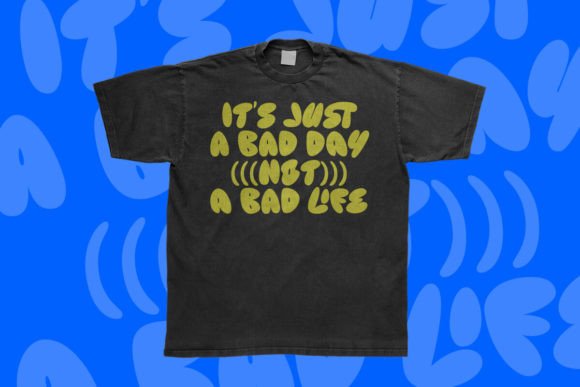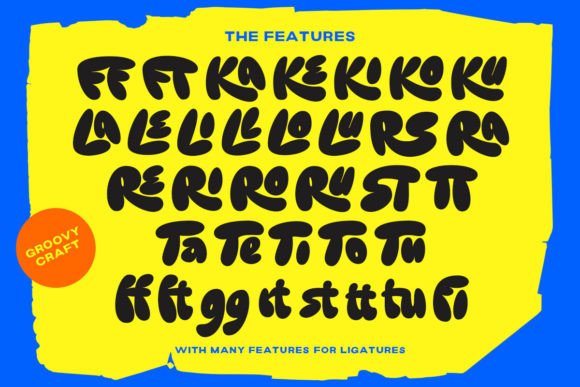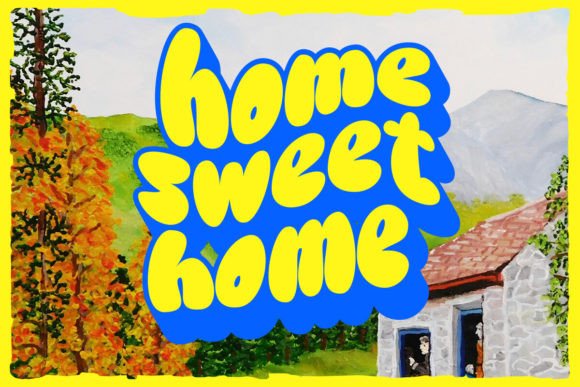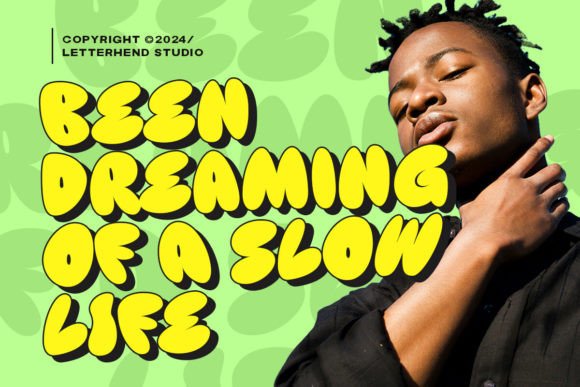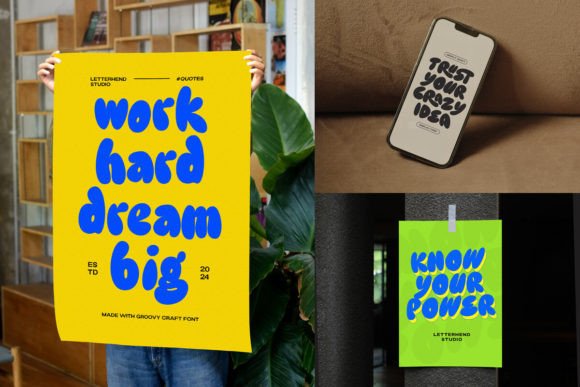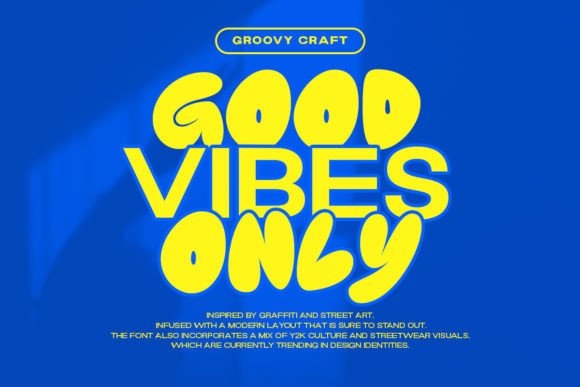
Introduction to Groovy Craft Font
Have you ever been rummaging through your grandma’s attic, unearthing old family photos and forgotten trinkets, only to stumble upon a dusty, handwritten card with bubbly letters that transport you to a bygone era? For designers, that feeling is about to become a reality with the Groovy Craft Font, a charming display font that embodies the carefree spirit of the 60s and 70s.
With its playful bubble letterforms, the Groovy Craft Font is a design resource that’s sure to bring a smile to your face and add a touch of whimsy to your creative project. Whether you’re working on a logo, invitation, or magazine cover, this high-quality font is the perfect addition to any design.
- Unique, hand-drawn design elements add a touch of whimsy to any project
Honest Review: Groovy Craft Font
I recently stumbled upon the Groovy Craft Font, a design resource that caught my attention. As a designer, I appreciate a good font that can elevate my creative projects. Let’s dive into the details.
What works well: ✨ The Groovy Craft Font has a unique, playful vibe that’s perfect for projects requiring a touch of whimsy. The high quality of the font ensures it looks crisp and clear, even when scaled up or down. The transparent background option is a bonus, giving me flexibility when designing against complex backgrounds.
- Unique and playful design aesthetic
- High quality, scalable font
Any limitations: ⚠️ While the Groovy Craft Font is a great addition to my design resource library, I’ve noticed that it’s not suitable for formal or professional projects. The font’s playful nature might not be suitable for corporate or business branding.
Overall impression: I’m impressed with the Groovy Craft Font’s potential for creative projects. It’s a great free download that can add a fun twist to your designs. Just be mindful of its limitations and use it accordingly.
Tips for Getting the Most Out of Groovy Craft Font
For a free download, use Groovy Craft Font in a variety of creative project settings, such as invitations, brochures, or social media graphics. Experiment with different font sizes and colors to create a visually appealing design.
Groovy Craft Font is ideal for craft-themed designs, such as scrapbooking, card making, and party invitations. Its high-quality design and transparent background make it a versatile design resource for any creative project.